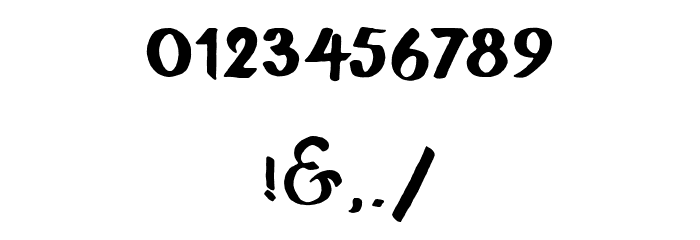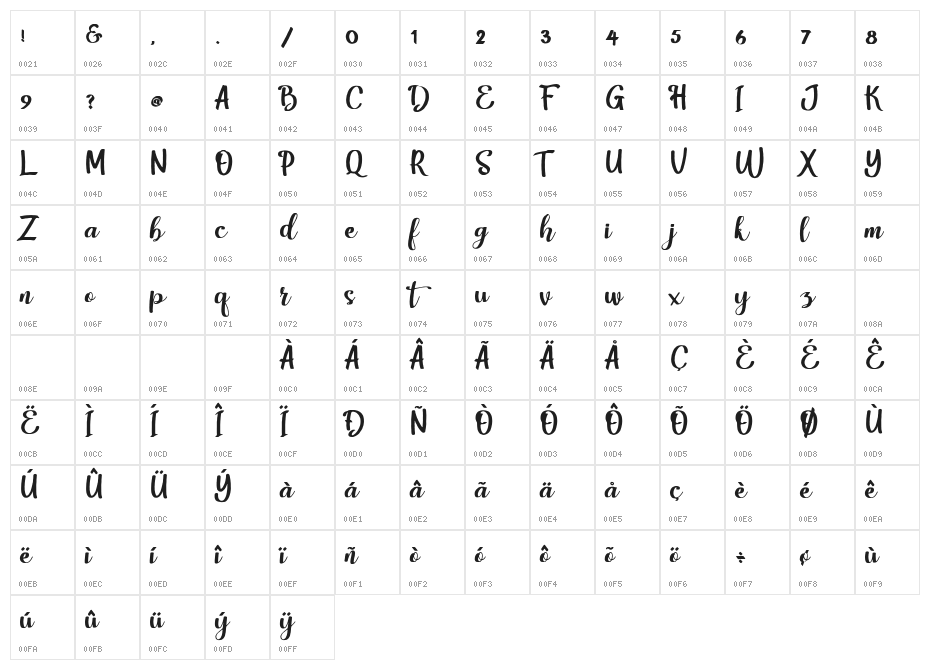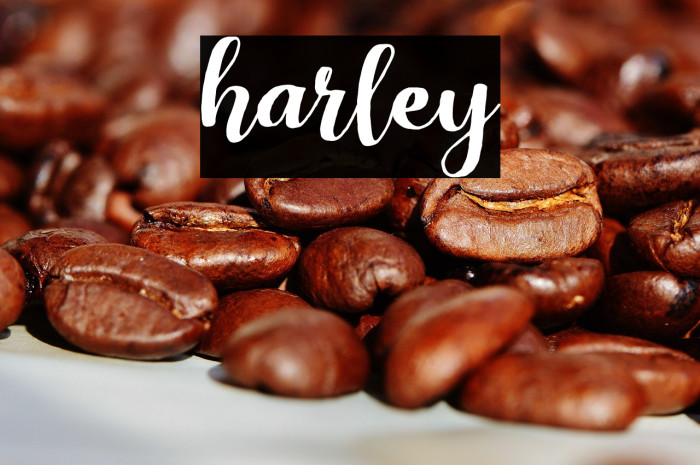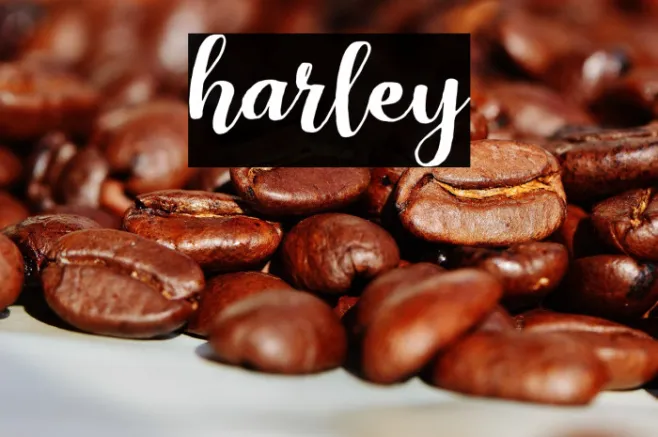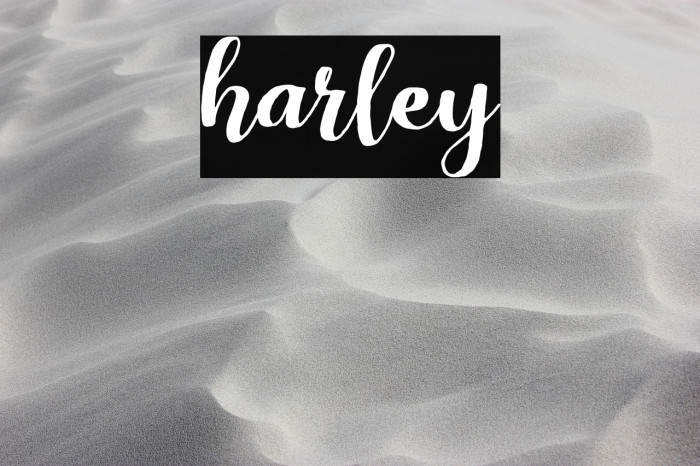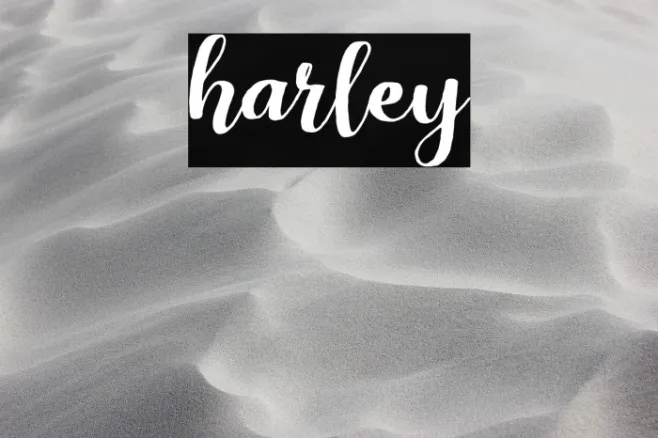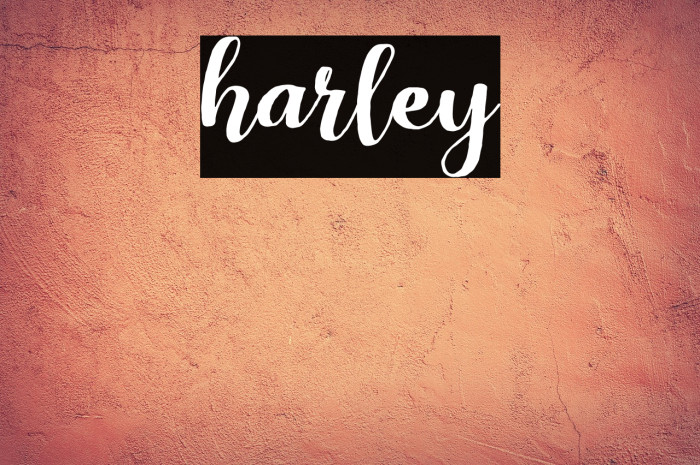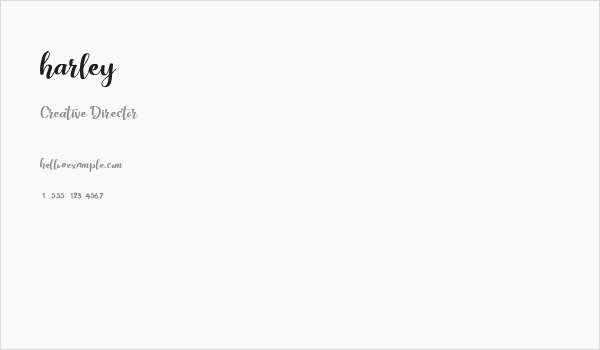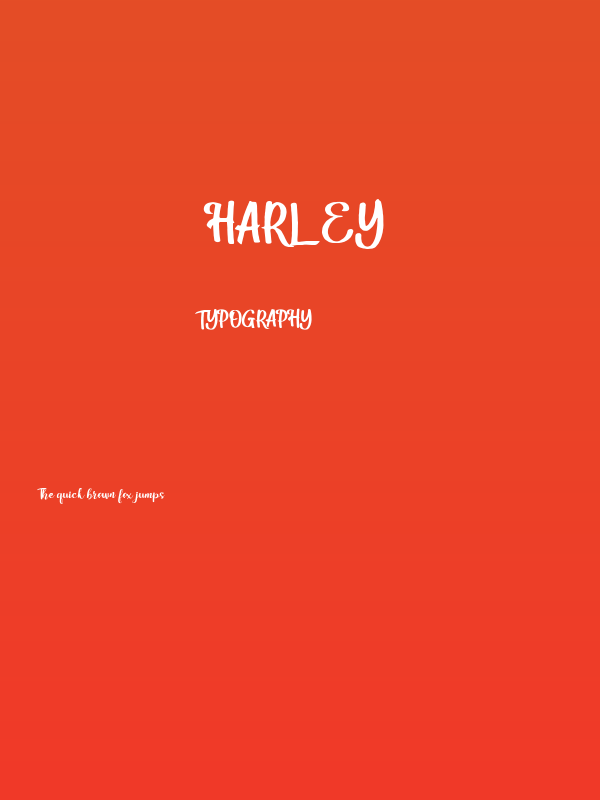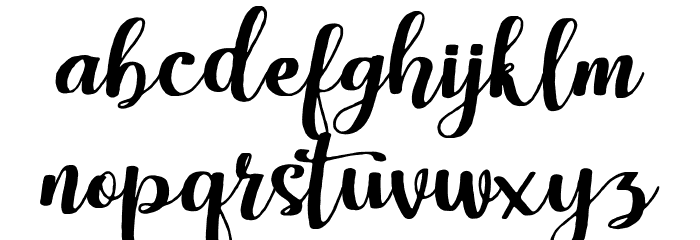
harley Font
harley Description
This font features a bold and expressive script style, characterized by its flowing, cursive letterforms. The uppercase letters exhibit a strong presence with their thick strokes and dynamic curves, while the lowercase letters maintain a consistent fluidity that enhances readability. The numerals are bold and clear, matching the overall aesthetic of the alphabet. Special characters are creatively designed, adding a playful touch to the font. The font's style is reminiscent of hand-painted signage, making it ideal for projects that require a personal and artistic flair.